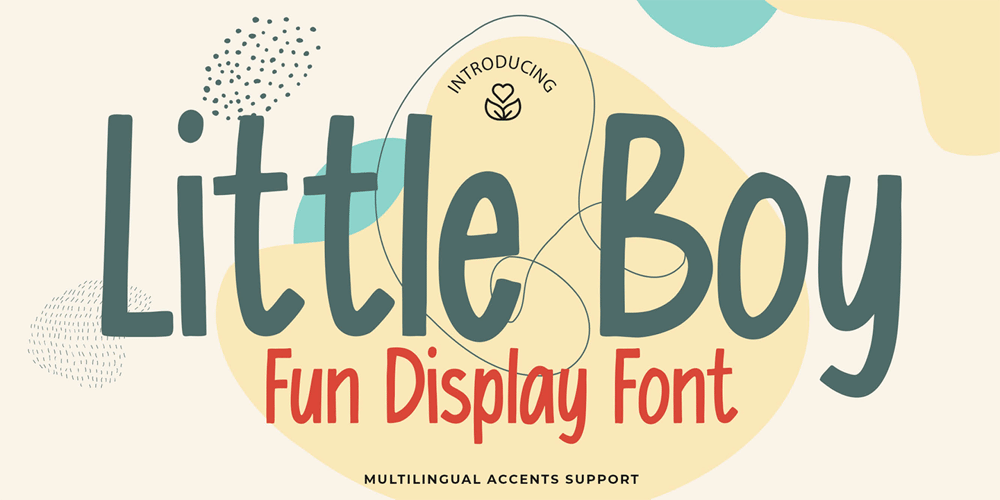
Little Boy Font Family was designed by Abdul Malik Wisnu, Anang Fibriyanto and published by Gassstype. Little Boy contains 1 styles and family package options. Here comes a New font, Introducing Little Boy It’s Fun Display Font is a Cute Craft style and Textured Natural Style , this font is great for your creative projects such as watermark on photography, and perfect for logos & branding, invitation,advertisements,product designs, stationery, wedding designs,label ,product packaging, special events or anything that need handwritting taste.Little Boy a natural display Hand Drawn feel. It is perfect for any design project as Invitation,logo, book cover, craft or any design purposes,photos, photography overlays, signs, window art, scrapbooking, tags and so much more!